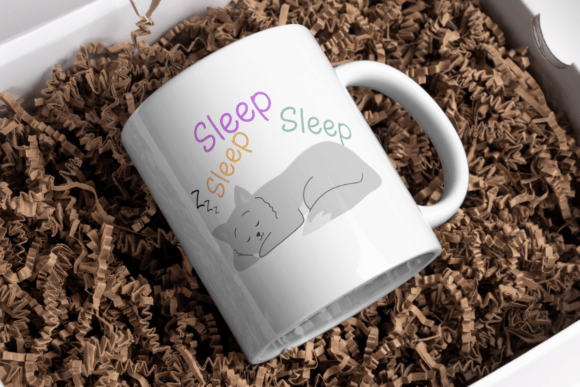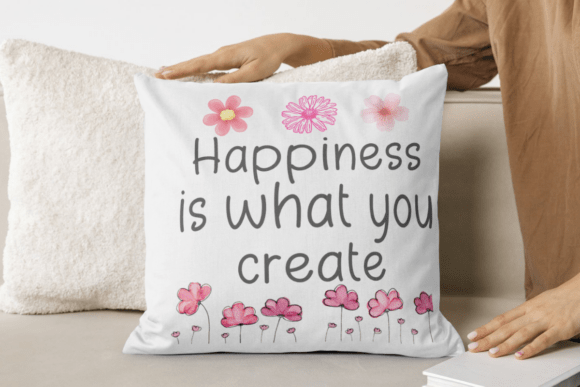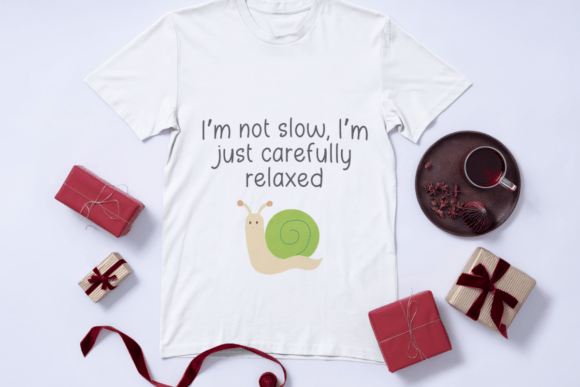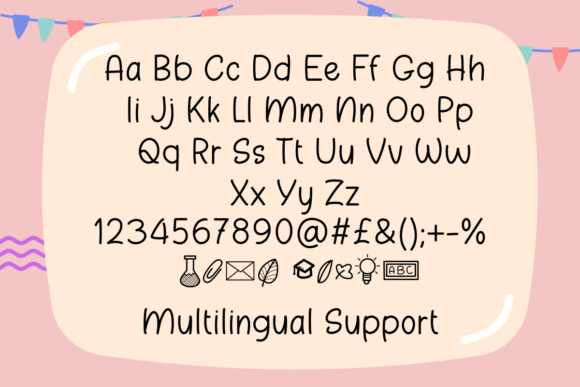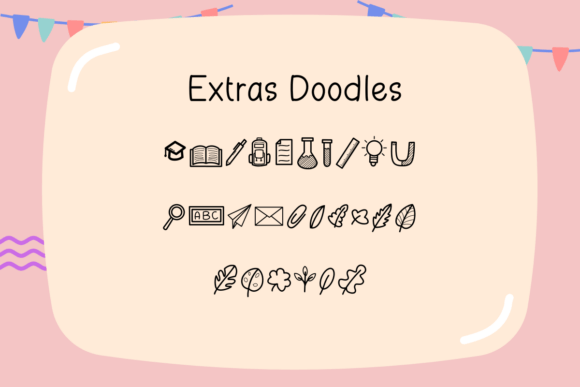
Bamb Bamb Land Font: Add a Touch of Whimsy to Your Designs
Are you looking for a font that can bring a relaxed and playful vibe to your designs? Look no further than the Bamb Bamb Land Font. This charming, lazy handwritten font is perfect for projects that call for a casual, organic, and whimsical touch. In this article, we’ll explore the key features of Bamb Bamb Land and how it can elevate your designs.
What is Bamb Bamb Land Font?
Bamb Bamb Land is a carefully crafted handwritten font that mimics the effortless flow of hand-drawn letters. Its carefree, uneven strokes and natural imperfections give it a warm, personal feel that’s perfect for designers and crafters who want to add a touch of whimsy to their work.
Key Features of Bamb Bamb Land Font
- Handwritten Style: Bamb Bamb Land’s handwritten style gives your text a warm, personal feel that’s perfect for a variety of design projects.
- Full Character Set: This font includes both uppercase and lowercase letters, numbers, and essential symbols, making it a versatile choice for designers.
- Multilingual Support: Bamb Bamb Land supports multiple languages, making it a great choice for designers who work with international clients.
- Doodles Included: This font comes with extra doodles, adding a fun and creative element to your designs.
Bamb Bamb Land is perfect for designers and crafters who work on a variety of projects, including:
- Stationery: Add a touch of whimsy to your stationery designs, such as greeting cards, invitations, and letterheads.
- Logos: Use Bamb Bamb Land to create a unique and memorable logo for your brand or business.
- Social Media: Bring a playful touch to your social media graphics, such as Instagram posts, Facebook graphics, and Twitter headers.
- DIY Projects: Use Bamb Bamb Land to add a personal touch to your DIY projects, such as handmade crafts, scrapbooking, and journaling.
Why Choose Bamb Bamb Land Font?
There are many reasons why designers and crafters choose Bamb Bamb Land Font for their projects. Here are a few:
- Unique and Playful: Bamb Bamb Land adds a unique and playful touch to your designs, setting them apart from more traditional fonts.
- Easy to Read: Despite its playful nature, Bamb Bamb Land is easy to read, making it perfect for body text and headlines.
- Versatile: This font can be used for a variety of design projects, from stationery to logos and social media graphics.
- High-Quality: Bamb Bamb Land is a high-quality font that’s been carefully crafted to ensure that it looks great in any design.
- Pair it with Other Fonts: Pair Bamb Bamb Land with other fonts to create a unique and interesting contrast.
- Use it for Headlines and Body Text: Use Bamb Bamb Land for both headlines and body text to create a cohesive look.
Bamb Bamb Land Font is a charming, lazy handwritten font that’s perfect for designers and crafters who want to add a touch of whimsy to their designs. With its carefree, uneven strokes and natural imperfections, this font brings a relaxed and playful vibe to any project. Whether you’re designing stationery, logos, social media graphics, or DIY projects, Bamb Bamb Land is a great choice. So why not give it a try and see how it can elevate your designs?